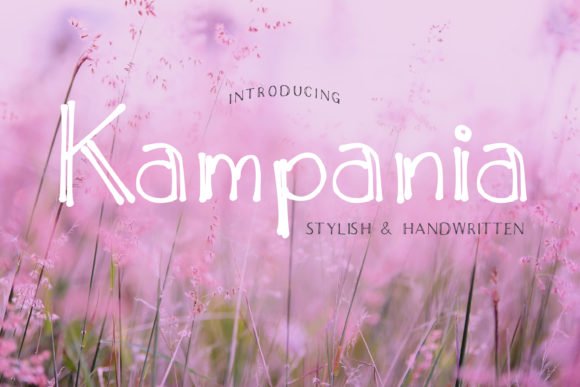
The Perfect Handwritten Touch: Discovering the Kampania Font
Have you ever been stuck in front of your computer, staring at a blank page, and suddenly a burst of creativity strikes? Maybe it’s the sound of a coffee shop in the background, the smell of freshly brewed coffee, or the sight of a beautiful handwritten note that sparks your imagination. Whatever it is, it’s that moment when you know you need something special to bring your ideas to life.
That’s where the Kampania Font comes in – a charming, casual, and cute handwritten font designed to add a personal touch to your designs. This clean and quirky font is perfect for logos, branding, social media, and crafty DIY projects, making it a valuable asset for designers looking to create unique and engaging content.
With the Kampania Font, you’ll be able to infuse your work with a sense of personality and whimsy, setting you apart from the crowd and making your designs truly unforgettable.
Kampania Font Key Features
- Font Family: Kampania Font offers a range of font styles, including Regular, Italic, Bold, and Bold Italic.
- Unique Characteristics: Kampania Font features a unique, hand-drawn design with subtle flair and texture, adding a touch of elegance and sophistication to any design.
Kampania Font Review
Overall, I think Kampania Font is a solid choice for designers looking for a stylish and elegant typeface. Here are some of its strengths:
- ✨ Unique blend of vintage and modern elements: Kampania Font has a distinct aesthetic that’s sure to stand out in any design project.
- ✨ Wide range of styles and weights: With multiple font styles and weights to choose from, Kampania Font offers a lot of flexibility for designers.
- ✨ High legibility: Kampania Font is easy to read, even at small font sizes, making it suitable for body text as well as headings.
- ⚠️ Limited language support: Kampania Font may not support all languages, which could be a problem for designers working on international projects.
- ⚠️ Not suitable for extreme font sizes: While Kampania Font is highly legible at small font sizes, it may not be the best choice for very large font sizes, where it can appear awkward or distorted.
Overall, I’d give Kampania Font 4 out of 5 stars. It’s a great choice for designers who want a stylish and elegant typeface, but may not be the best fit for every project. With a little experimentation and planning, however, Kampania Font can be a valuable addition to any designer’s toolkit.
For best results, use Kampania Font in bold or italic styles to emphasize important information. You can also pair it with other fonts to create a visually appealing combination.
For advanced users, you can also use Kampania Font in conjunction with other design elements, such as shapes and graphics, to create a unique and engaging design.
For best results, use Kampania Font in headings and subheadings to create a clear hierarchy of information. You can also use it in body text to add visual interest to your presentation or document.
Kampania Font is suitable for a variety of design applications, including:
Alternatives to Kampania Font
Playfair Display is a luxurious, high-end serif font that is ideal for use in titles, headings, and other display text. It features elegant connections between letters, making it perfect for creating a sense of sophistication and refinement. Compared to Kampania Font, Playfair Display has a more formal and traditional feel, making it suitable for use in high-end branding, luxury goods, and fine art.